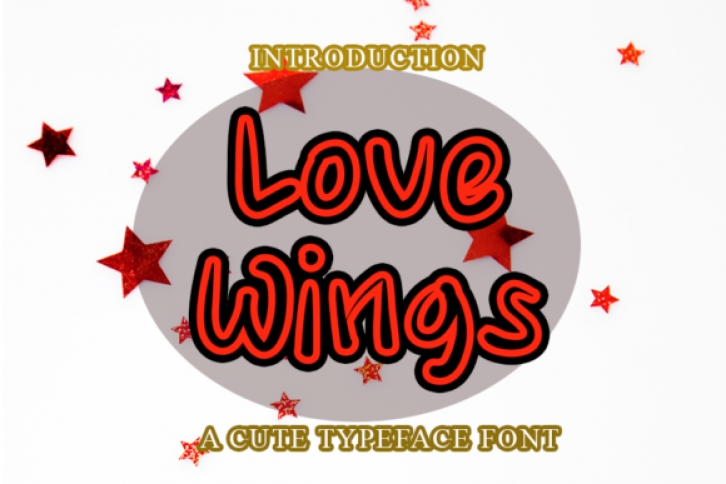
Love Wings is a unique handwritten font. It looks beautiful on a wide variety of designs requiring a personalized style, such as wedding invitations, valentines day cards, thank you cards, weddings, greeting cards, logos, and so on.